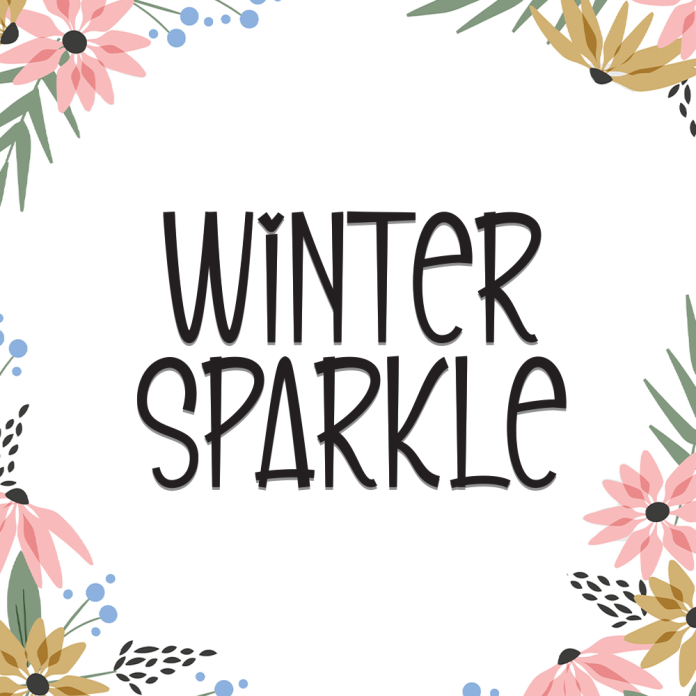
Winter Sparkle is a whimsical and frosty display font that captures the enchantment of wintertime. With its elegant curves and sparkling details, this font adds a magical touch to any seasonal project.
Display style with a wintry, decorative flair
Ideal for holiday greetings, winter-themed posters, branding, and crafts
Unique snowflake-inspired embellishments
Uppercase and lowercase characters
Bring the chill and charm of winter to your designs with the twinkling beauty of Winter Sparkle!